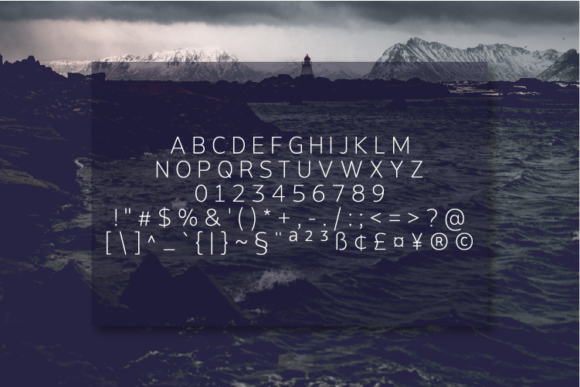
The Perfect Typographic Companion: Hunzello Extra Light Font
Have you ever stared at a blank canvas, trying to decide on the perfect font to bring your design to life? We’ve all been there. As designers, we know that the right font can make or break a project’s aesthetic. For those seeking a clean and modern sans serif font, look no further than Hunzello Extra Light Font. This elegant typeface is designed to add a touch of sophistication to any design, whether it’s a corporate brochure, a website, or a social media graphic.
The Hunzello Extra Light Font is more than just a pretty face – it’s a valuable tool for designers who want to create visually appealing and professional designs. Its minimalist design makes it easy to read and understand, while its beautiful arrangement of letters adds a touch of personality to any project. Whether you’re a seasoned designer or just starting out, Hunzello Extra Light Font is sure to become a trusted companion in your creative journey.
- Unique Characteristics: Elegant, modern design with a subtle flair, ideal for creative and artistic projects
- Language Support: Multi-language support, including Latin, Cyrillic, and Greek alphabets
Hunzello Extra Light Font Review
I recently had the chance to work with the Hunzello Extra Light Font, and I must say, it’s been an interesting experience. Here are my thoughts:
- Unique Design: Hunzello Extra Light has a distinctive, elegant look that sets it apart from other fonts. It’s perfect for projects where you want to add a touch of sophistication.
- Legibility: Despite being an extra-light font, Hunzello is surprisingly easy to read, even at smaller sizes. This makes it suitable for body text and headlines alike.
- Comprehensive Character Set: The font includes a wide range of characters, including Cyrillic and Greek alphabets, making it a great choice for projects with a global audience.
- Scalability: While Hunzello Extra Light looks great at larger sizes, it can become blurry and pixelated at smaller sizes. This may be a concern for projects that require very small text.
- Lack of Italic: Unfortunately, Hunzello Extra Light doesn’t come in an italic version, which may limit its versatility in certain design situations.
Overall, I think Hunzello Extra Light is a solid choice for designers who want to add a touch of elegance to their projects. While it has some limitations, its unique design and legibility make it a great option for the right projects. Just be mindful of its scalability and lack of italic version when making your decision.
Hunzello Extra Light font is ideal for:
- Titles and headings
- Body text for elegant and sophisticated designs
Alternatives to Hunzello Extra Light Font
1. Lato Light Font
Lato Light Font is a clean and elegant sans-serif font perfect for modern designs. It is highly legible and works well for both body text and headings. Use it for designs that require a touch of sophistication and minimalism.
Comparison: Lato Light is more geometric and modern compared to Hunzello Extra Light, making it a great choice for contemporary designs. It also has a slightly stronger presence on the page, making it suitable for headings and titles.
2. Open Sans Light Font
Open Sans Light Font is a highly readable and versatile sans-serif font ideal for digital designs. It is designed to work well in a variety of contexts and is a great choice for body text and headings. Use it for designs that require a neutral and approachable tone.
Comparison: Open Sans Light is more rounded and friendly compared to Hunzello Extra Light, making it a great choice for designs that require a warm and inviting tone. It also has a more subtle presence on the page, making it suitable for body text and long-form content.